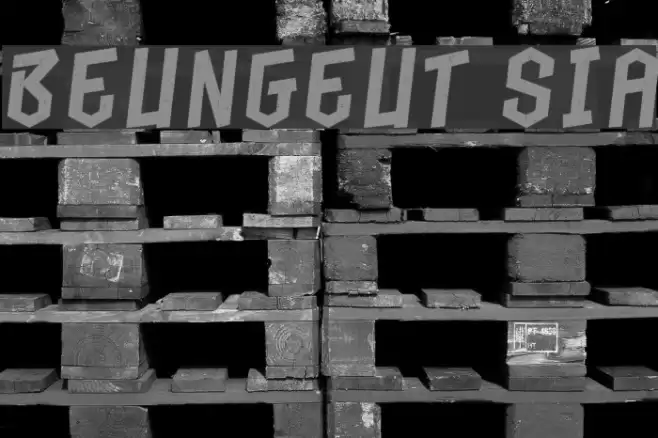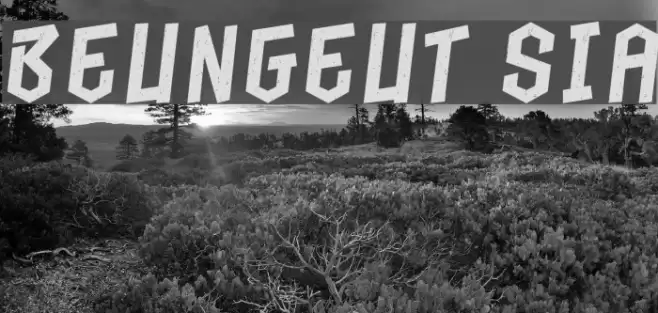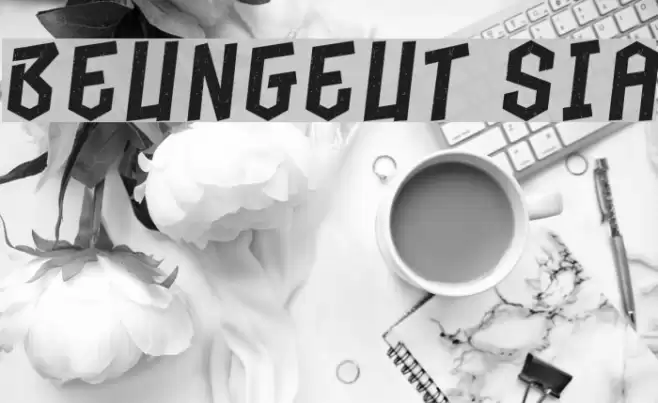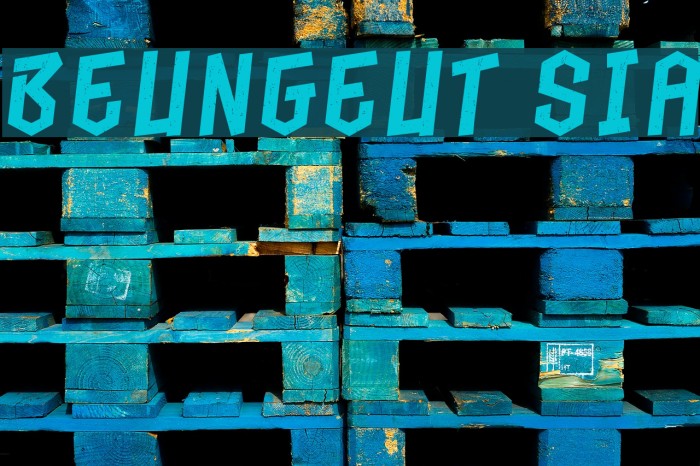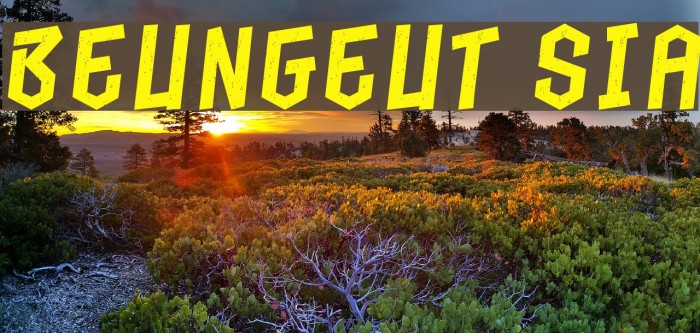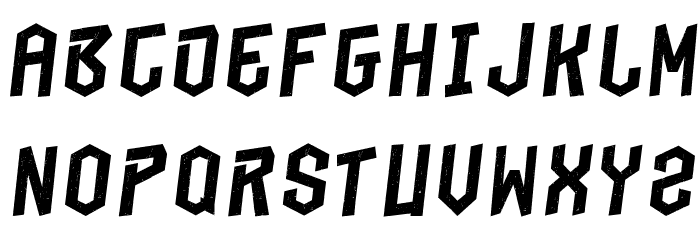
Beungeut Sia Font
Beungeut Sia Description
This font features a bold, angular design with a distressed texture, giving it a rugged and edgy appearance. The uppercase letters are characterized by sharp, geometric shapes, while the lowercase letters maintain a consistent style with slightly softer edges. The numerals and special characters follow the same design principles, ensuring a cohesive look across all glyphs. The font's unique texture adds a vintage or grunge feel, making it stand out in various design contexts.
A bold, angular font with a distressed, grunge texture from Uncategorized fonts.
- Proposed Projects: Ideal for posters, album covers, branding for edgy or alternative products, and any project requiring a bold, standout typeface.
- Overall Style: Vintage, Grunge